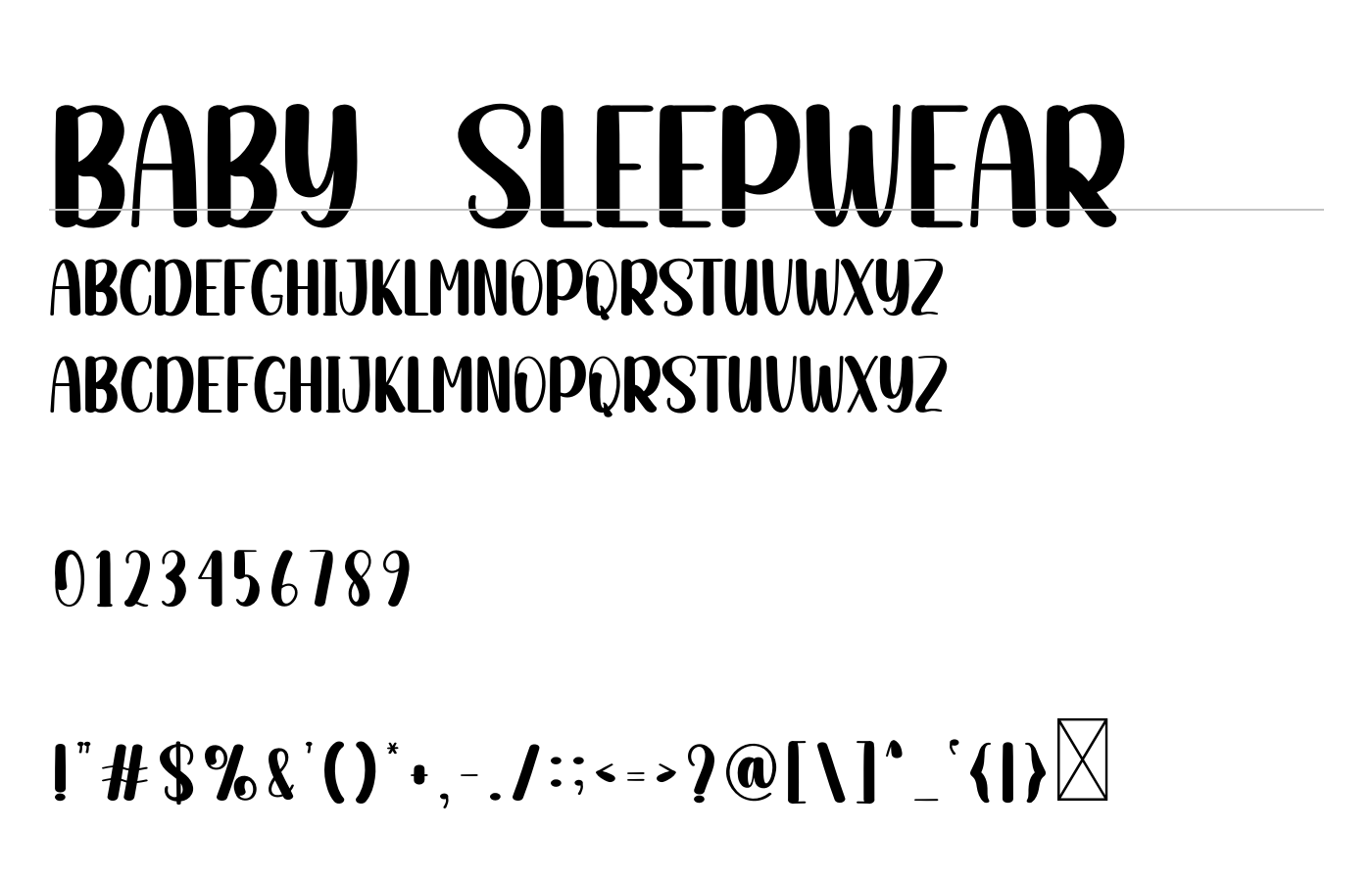
Baby Sleepwear Font is a playful and whimsical sans serif typeface with a hand-drawn feel, featuring tall, narrow letterforms and rounded edges that create an inviting, friendly vibe. Its uneven strokes and quirky details make it perfect for children’s products, casual branding, and fun packaging where a lighthearted, approachable look is desired. This font works best in headlines and short text where personality and charm are key.
Baby Sleepwear Font